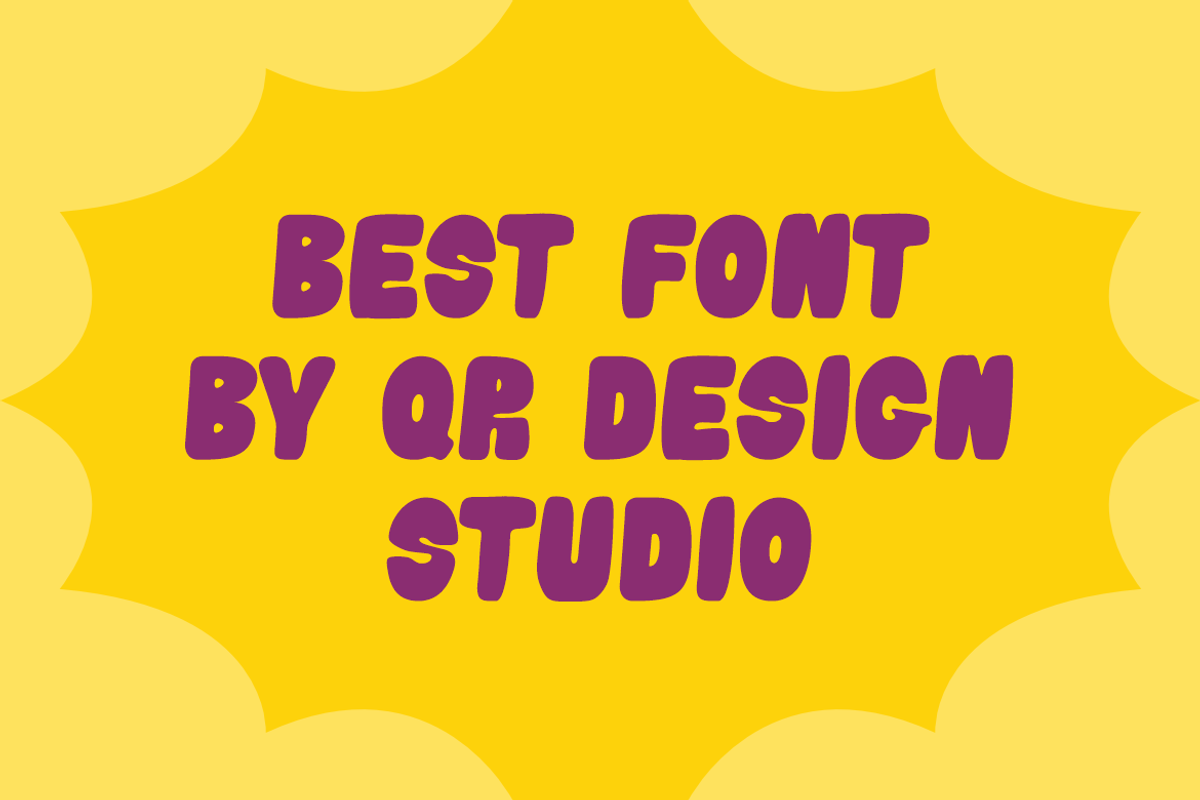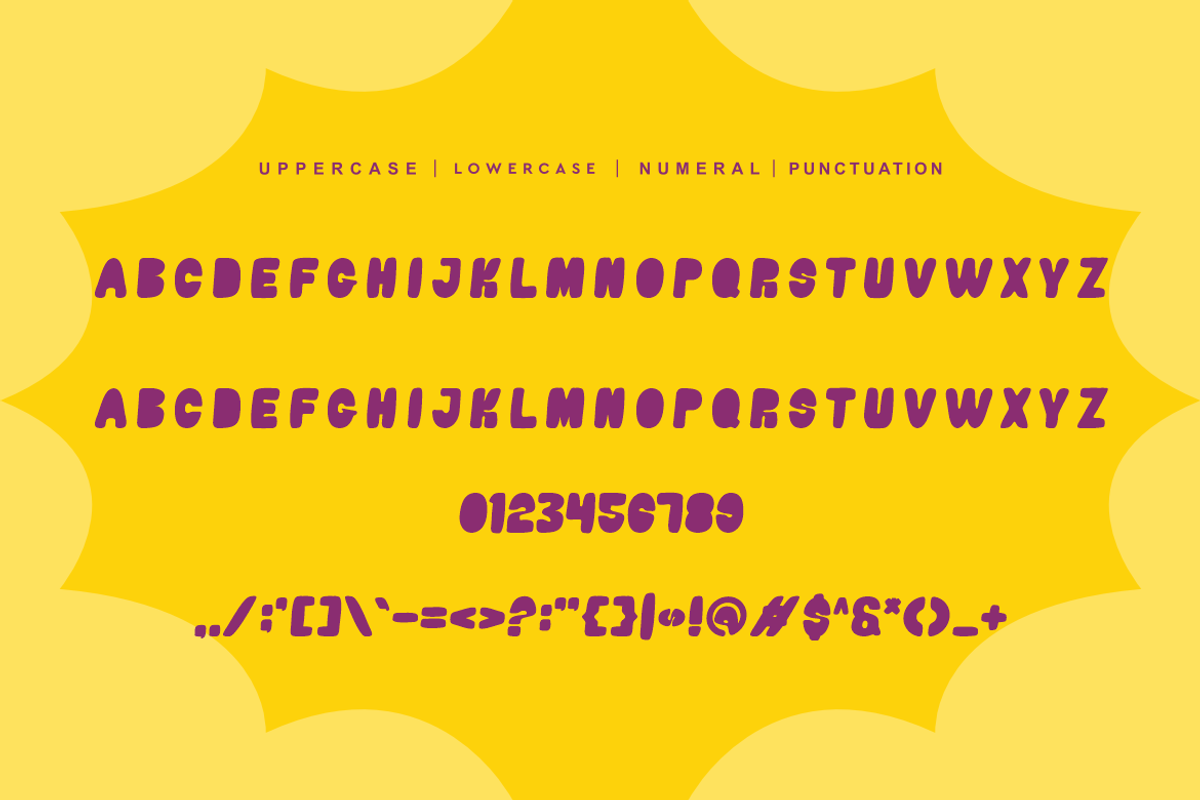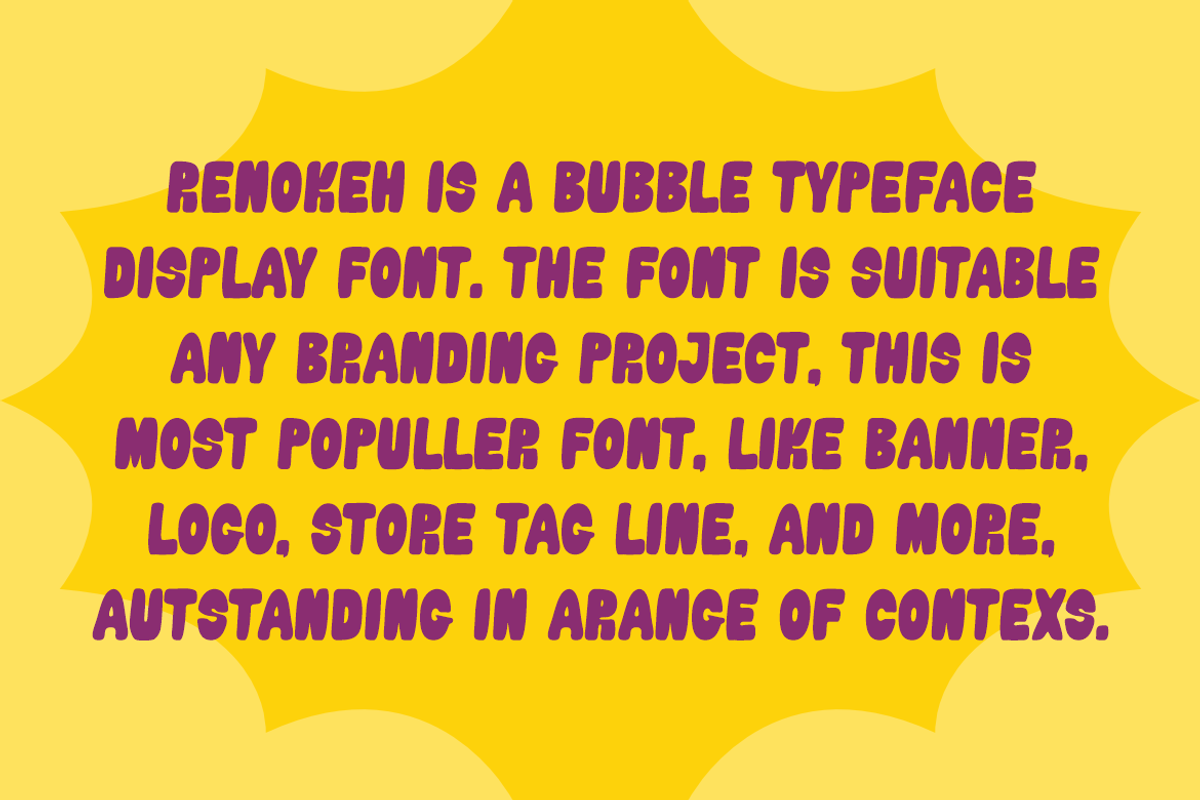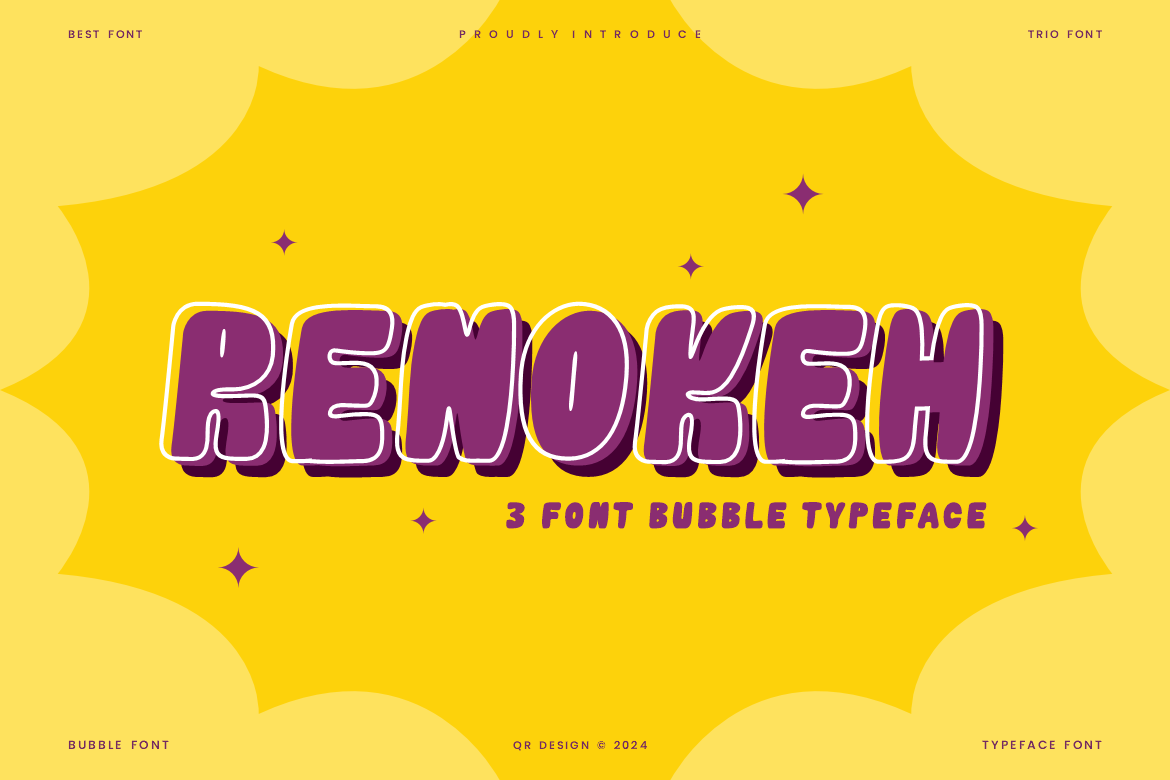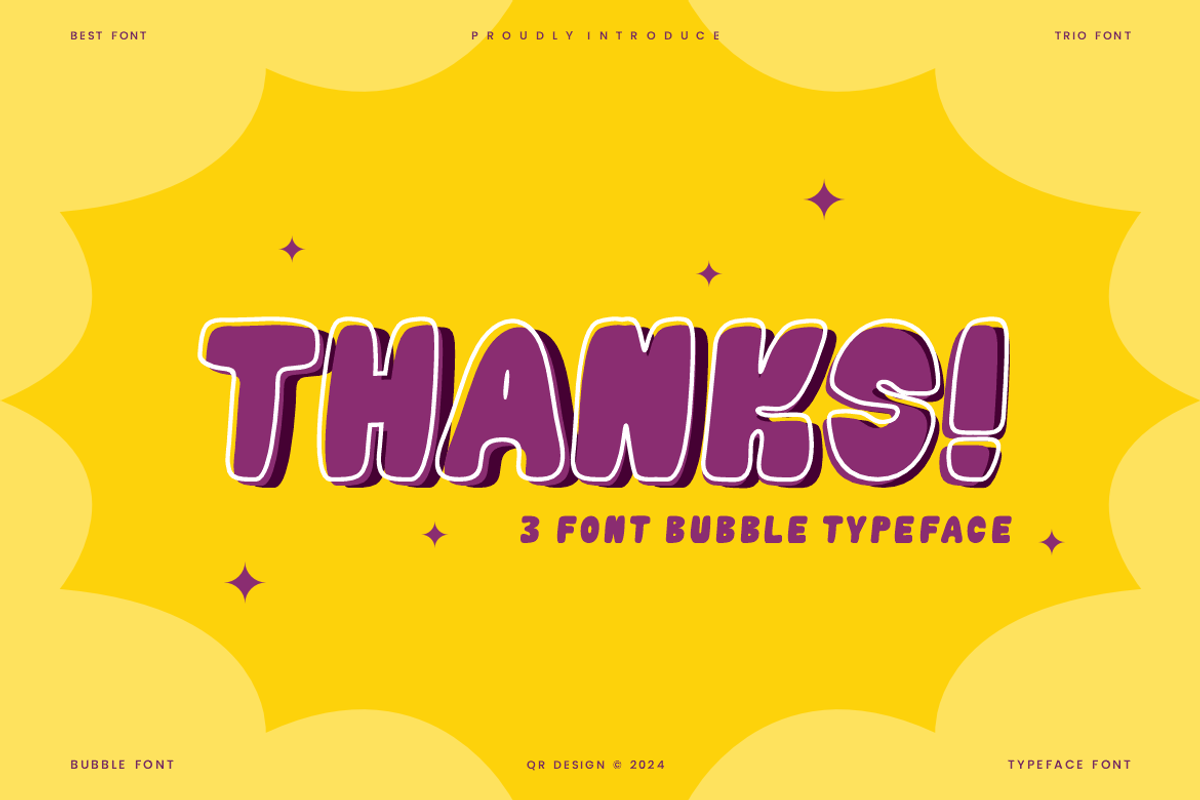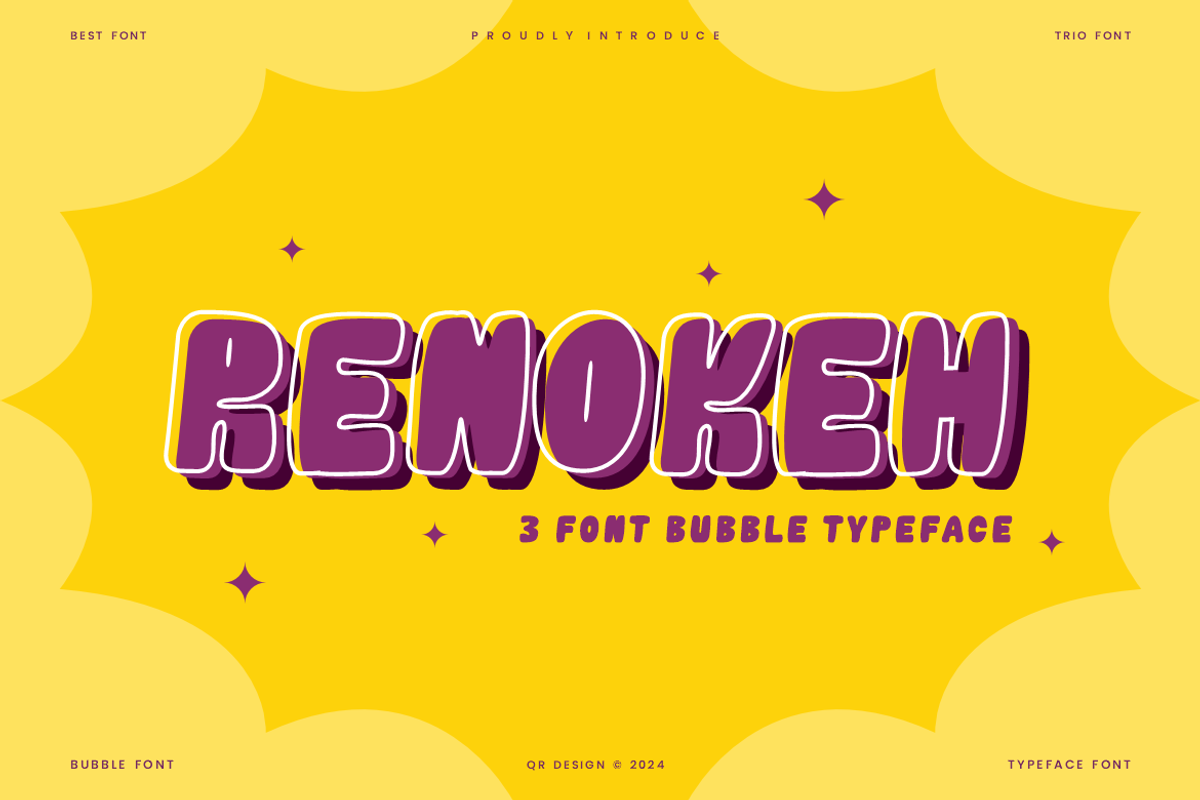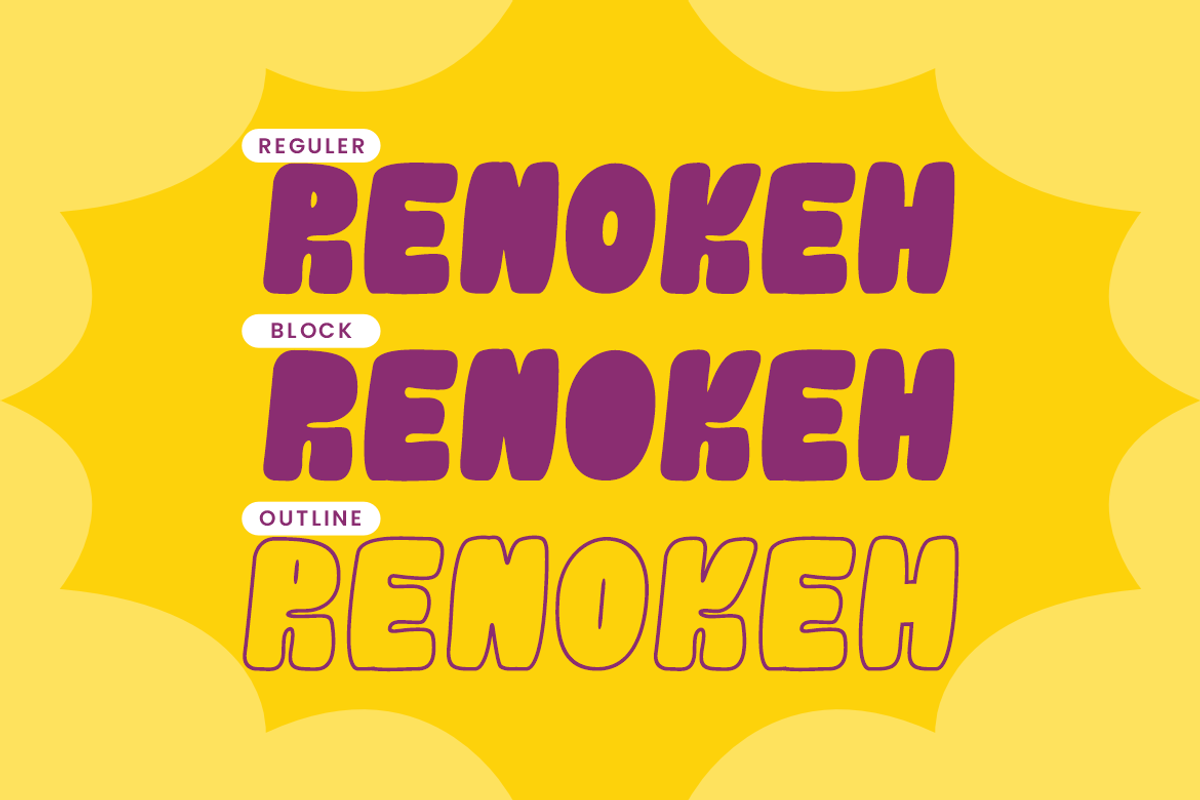
Renokeh - Bubble Font
Renokeh Font is a bold and authentic display font. The font is suitable for any branding project like poster, logo, kids, and many more. Outstanding in a wide range of contexts.